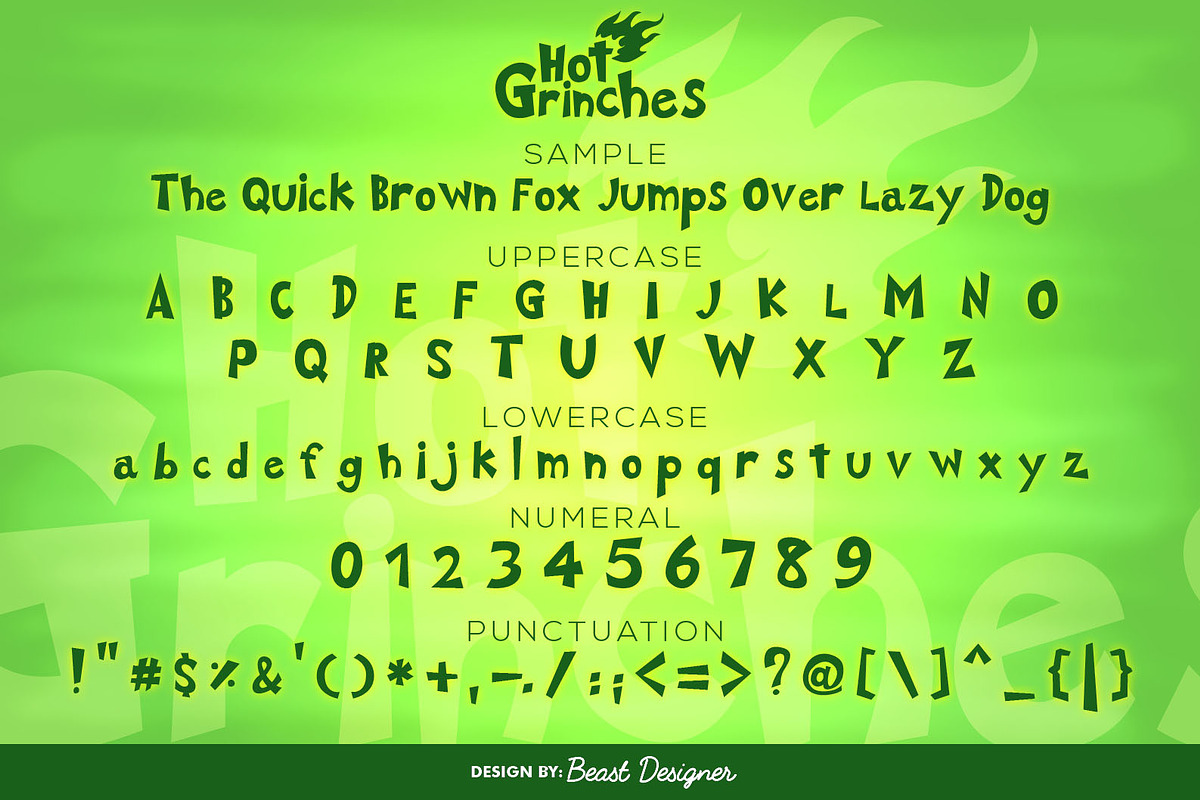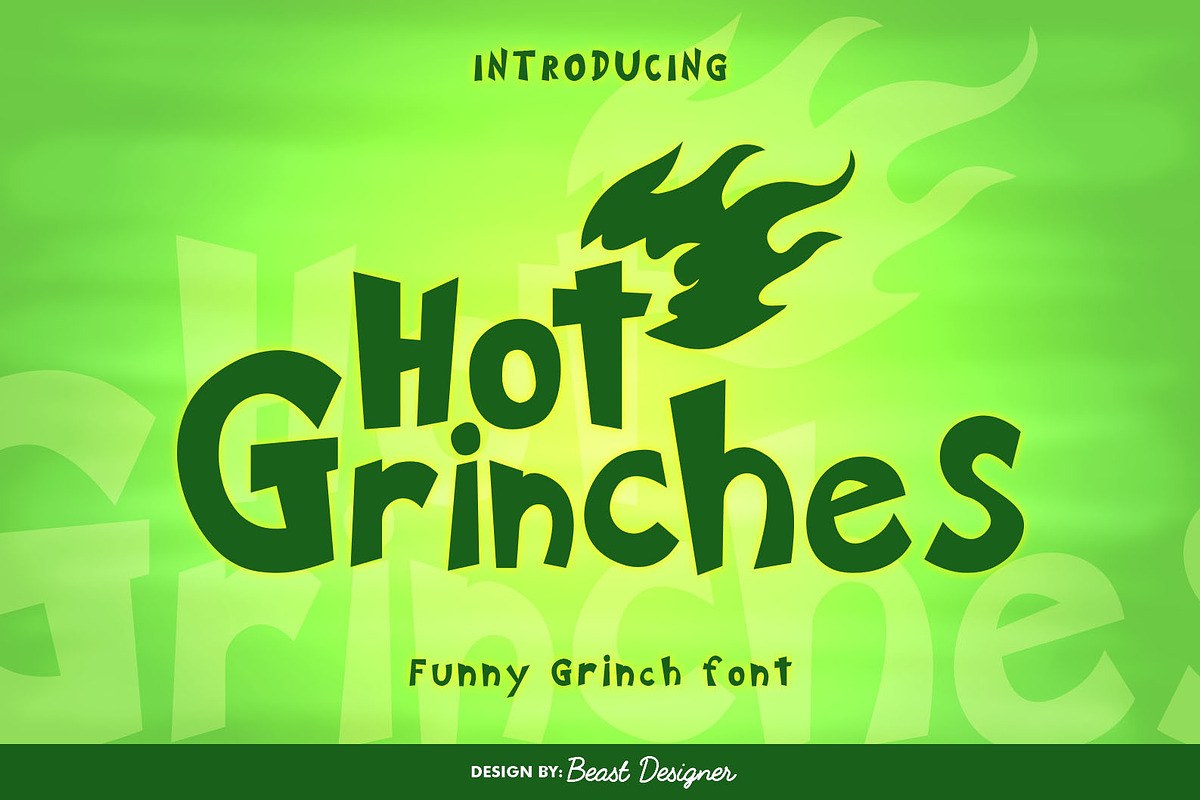
Hot Grinches
Hot Grinches Font is a casual display script font that exudes playfulness and whimsy. Its lively characters make it well-suited for children's designs and projects needing a touch of joy.